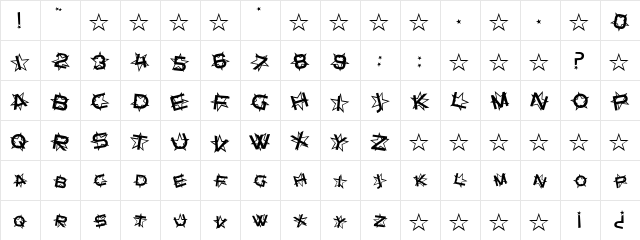
Star Dust Regular Free Font
Star Dust Regular
Complete Star Dust Regular glyph index. Displaying only characters natively supported by Star Dust Regular font.
Design Context for Star Dust
Star Dust is a composed and adaptable typeface that performs quietly and consistently across a wide range of design contexts.